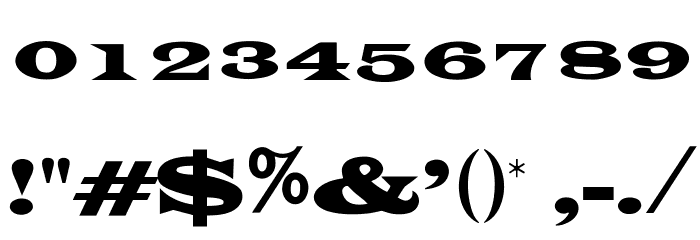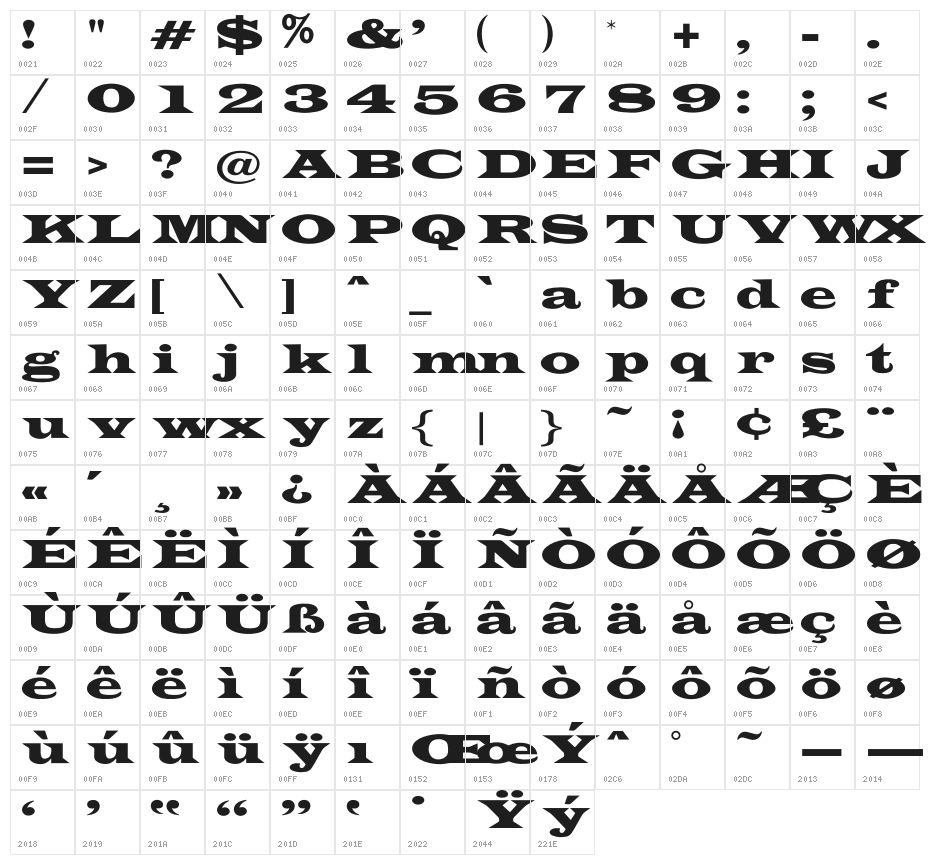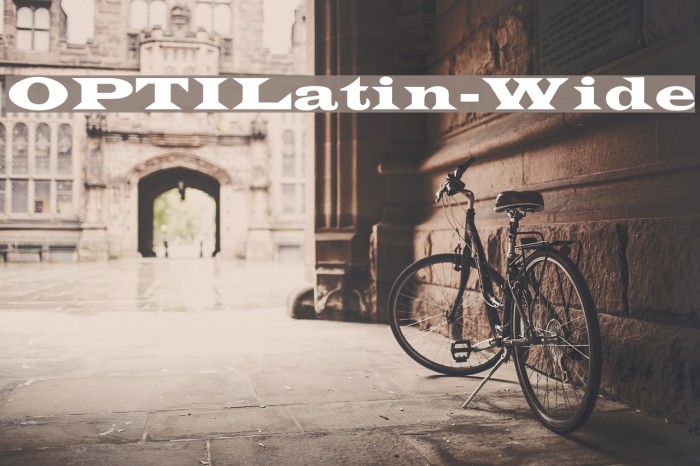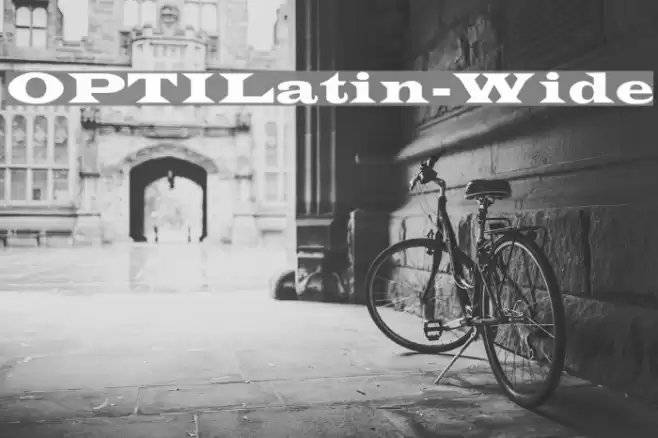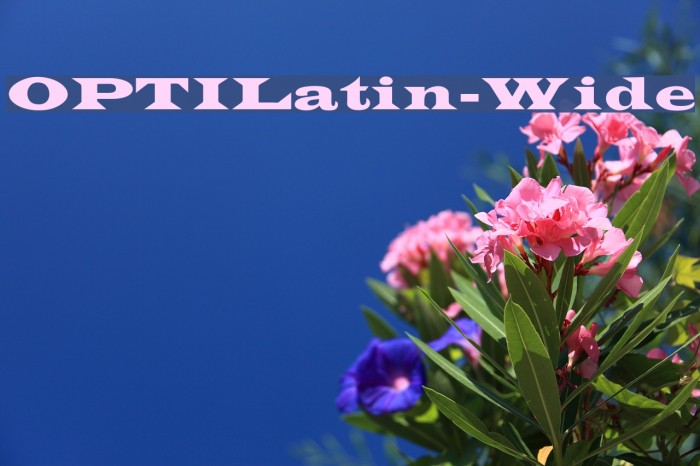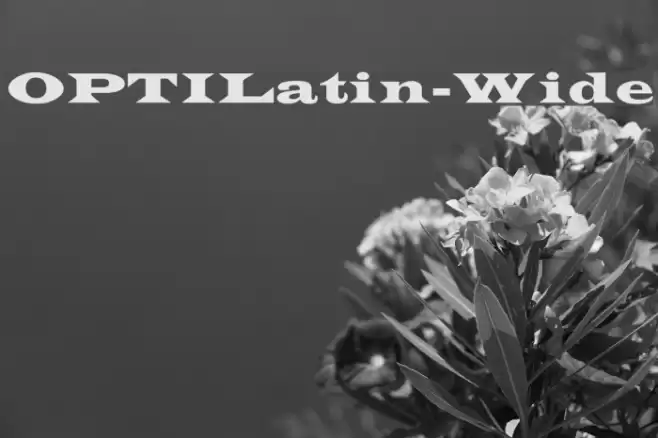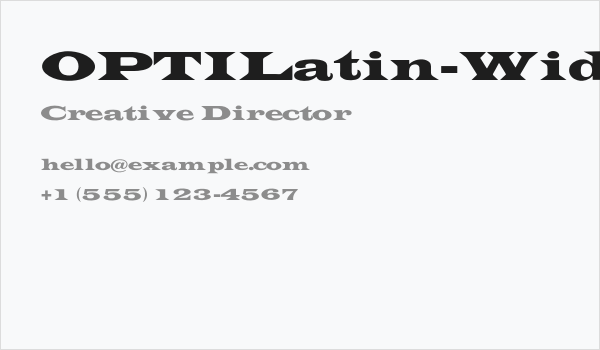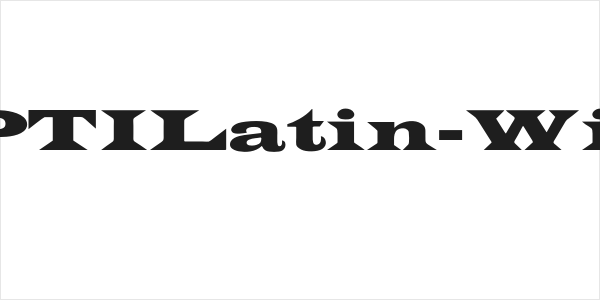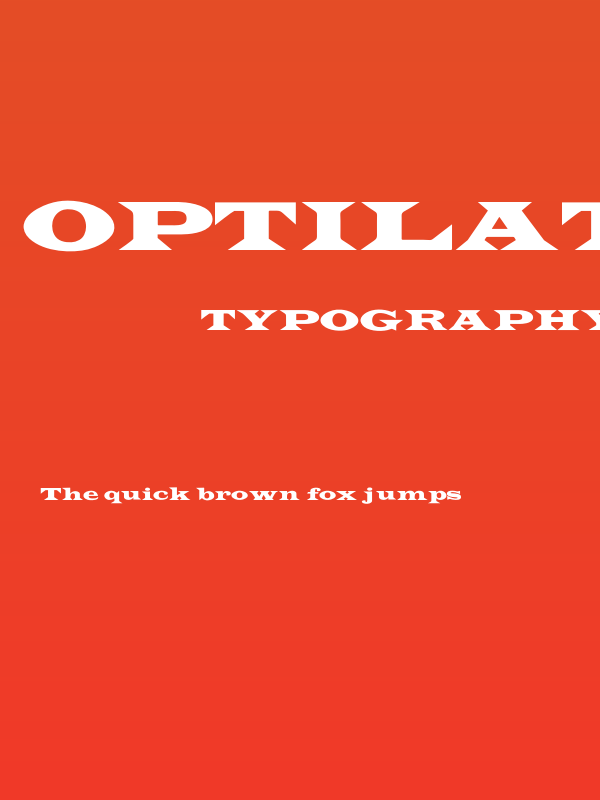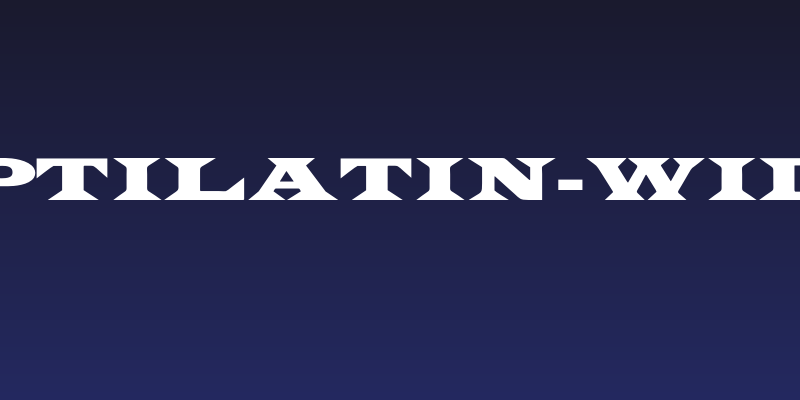
OPTILatin-Wide Font
OPTILatin-Wide Description
This font exhibits a bold and robust design with strong, thick strokes that give it a commanding presence. The characters are wide and expansive, contributing to a sense of stability and strength. Each letter features distinct serifs that add a touch of classic elegance while maintaining a modern appeal. The uppercase letters are particularly striking, with a uniformity that enhances readability. The lowercase letters mirror the boldness of the uppercase, ensuring consistency throughout the text. Numerals are equally bold, making them stand out prominently. Special characters are designed with the same attention to detail, ensuring they integrate seamlessly with the rest of the font. Overall, this font is ideal for making a bold statement in any design project.
| Proposed Projects | Ideal for headlines, posters, branding, and any project requiring a strong visual impact. |